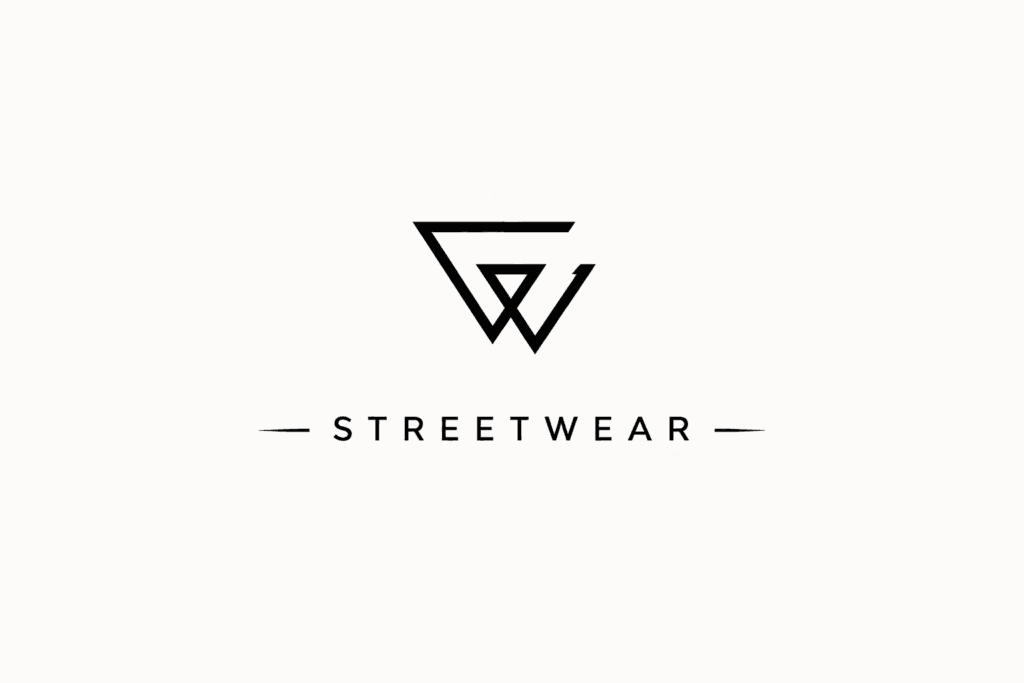
Creating a strong visual identity is essential in the fashion industry, especially in streetwear. With the rise of AI tools, using the right AI streetwear logo prompts can help brands generate bold, unique, and memorable logos faster than ever. Whether you are starting a new brand or refreshing your identity, AI streetwear logo prompts make it easier to explore creative directions and build a strong visual style. By understanding how to use AI streetwear logo prompts, you can create logos that capture street culture and stand out in a competitive market.
In this guide, you will find powerful AI streetwear logo prompts and ideas to help shape your brand identity.
Why AI Streetwear Logo Prompts Matter for Branding
Streetwear is all about identity, attitude, and culture. Using AI streetwear logo ideas helps you experiment with different styles quickly.
- Faster concept generation
- Unique and creative logo ideas
- Consistent design exploration
- Cost-effective branding process
With strong AI streetwear logo ideas, brands can develop visuals that reflect their personality and audience.
AI Streetwear Logo Prompts for Bold Typography Styles
Typography is a core element in streetwear branding.
- “Bold streetwear logo, heavy typography, urban style, graffiti influence, black and white, high contrast, edgy aesthetic”
- “Streetwear logo design, custom lettering, sharp edges, modern urban fashion, minimalist background”
- “Vintage streetwear typography logo, distressed texture, retro urban vibe, bold font style”
These AI streetwear logo ideas focus on strong text-based branding.
AI Streetwear Logo Prompts for Graffiti and Urban Art Style
Graffiti style reflects raw street culture.
- “Graffiti streetwear logo, spray paint texture, vibrant colors, urban wall background, expressive lettering”
- “Street art logo design, graffiti tag style, bold strokes, modern streetwear brand identity”
- “Urban graffiti logo, colorful splash, edgy street culture, dynamic composition”
These AI streetwear logo ideas help capture authentic street aesthetics.
AI Streetwear Logo Prompts for Minimalist Streetwear Branding
Not all streetwear needs to be loud.
- “Minimalist streetwear logo, clean typography, monochrome palette, modern fashion brand”
- “Simple streetwear logo design, sleek font, subtle urban style, minimal layout”
- “Modern streetwear logo, minimal design, black and white, premium fashion aesthetic”
Example Minimalist Streetwear Logo.
These AI streetwear logo ideas are perfect for clean and premium brands.
AI Streetwear Logo Prompts for Icon and Symbol-Based Design
Symbols can make your brand more memorable.
- “Streetwear logo with bold icon, urban symbol, modern design, simple shapes, strong identity”
- “Streetwear brand logo, abstract symbol, edgy style, minimal color palette”
- “Urban fashion logo with icon, geometric shapes, bold and modern composition”
Example Streetwear Logo With Bold Icon.
These AI streetwear logo ideas help create recognizable brand marks.
AI Streetwear Logo Prompts for Vintage and Retro Style
Retro aesthetics are popular in streetwear.
- “Vintage streetwear logo, retro typography, faded colors, classic urban fashion style”
- “Old-school streetwear logo, 90s style, bold fonts, nostalgic design”
- “Retro streetwear brand logo, distressed texture, vintage color palette”
Example Vintage Streetwear Logo.
These AI streetwear logo ideas add a nostalgic feel to your brand.
AI Streetwear Logo Prompts for Luxury Streetwear Branding
Streetwear can also feel premium.
- “Luxury streetwear logo, elegant typography, minimal design, gold accents, premium branding”
- “High-end streetwear logo, clean layout, modern font, sophisticated style”
- “Premium urban fashion logo, minimalist aesthetic, luxury brand identity”
These AI streetwear logo ideas help create upscale streetwear brands.
AI Streetwear Logo Prompts Tips for Better Results
Using prompts effectively improves your output.
1. Be Specific with Style
Include words like “graffiti,” “minimalist,” or “vintage.”
2. Define Color and Mood
Mention color palettes and emotional tone.
3. Experiment and Iterate
Try different variations to refine results.
Applying these tips makes your AI streetwear logo ideas more effective.
AI Streetwear Logo Prompts Tools You Can Use
To create designs, you can use:
- AI image generators
- Design platforms like Canva
- Advanced tools like Midjourney
These tools help bring your AI streetwear logo ideas to life.
Common Mistakes in AI Streetwear Logo Prompts
Avoid these common errors:
- Using vague prompts
- Overcomplicating designs
- Ignoring brand identity
- Not refining results
Fixing these issues improves your AI streetwear logo prompts output.
Using AI streetwear logo prompts is a powerful way to explore creative branding ideas quickly. With the right prompts, you can generate bold visuals that reflect your brand identity and connect with your audience. The key is to stay consistent, experiment with styles, and refine your designs over time.
As streetwear continues to evolve, mastering AI streetwear logo prompts gives you an advantage in creating unique and standout brands.